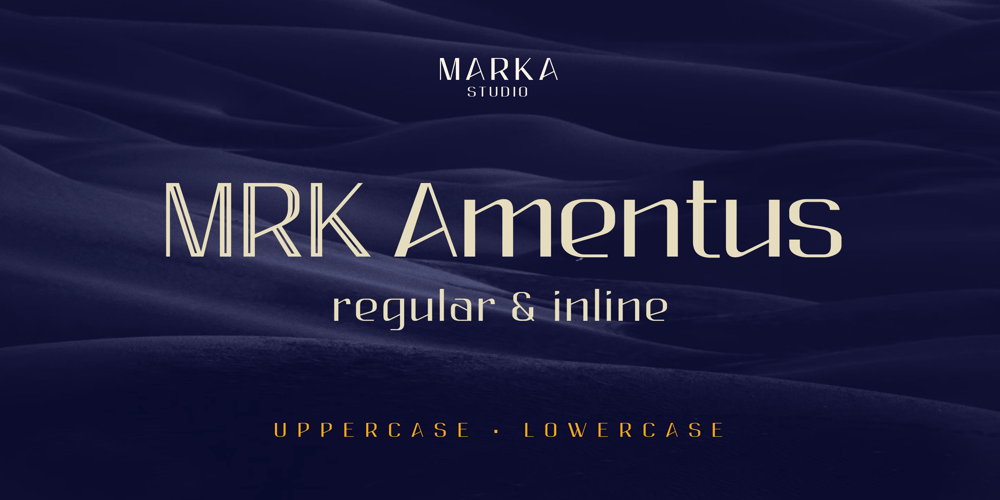
MRK Amentus Font Family was designed by Murad Asadov, Rizvan Bagirli, Qnyaz Yaqubov and published by Marka Design. MRK Amentus contains 2 styles and family package options. MRK Amentus is an elegant and modern sans serif font inspired by mixing humanistic and Grotesk styles. Horizontal oblique lines are the main visual style for this type. It gives an aesthetic dynamic look that is perfect for modern elegant brandings and for headlines.This font is suitable for various purposes such as movies, posters, logos, labels, packaging, branding, editorial design, and any modern purposes.